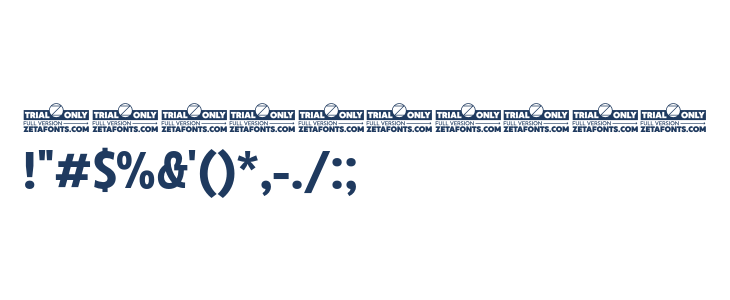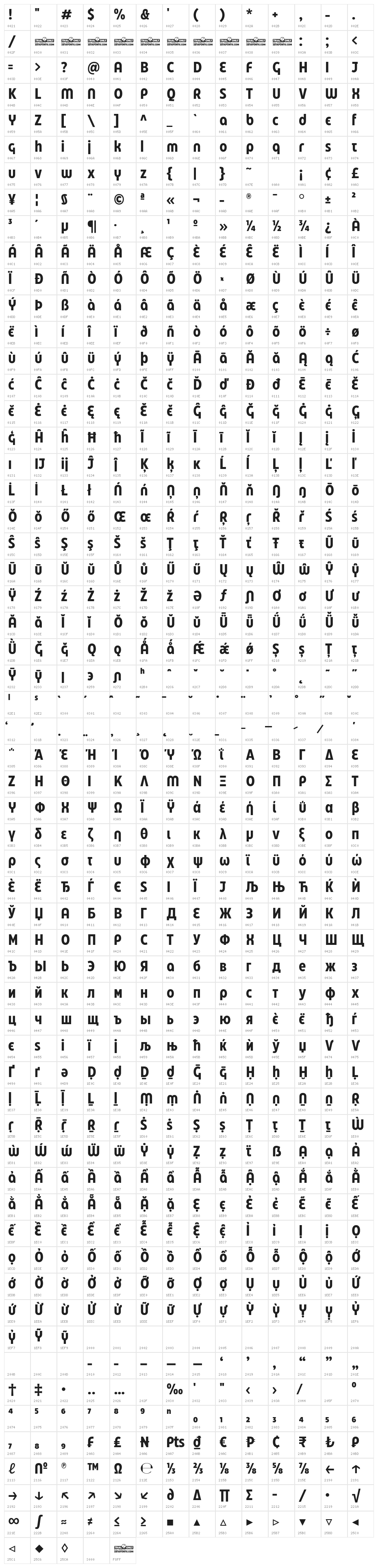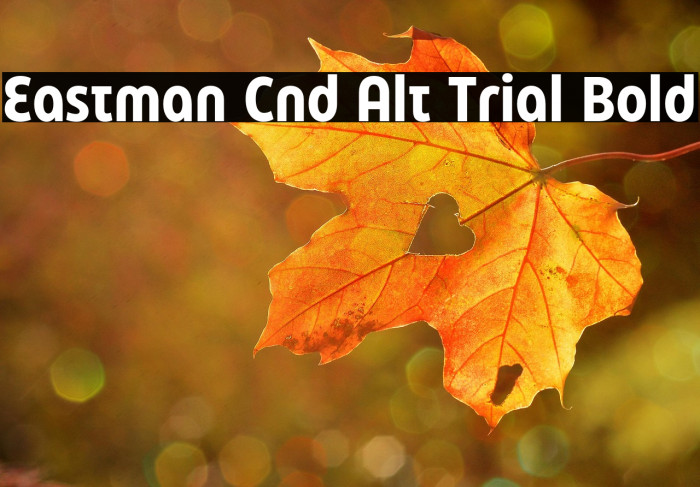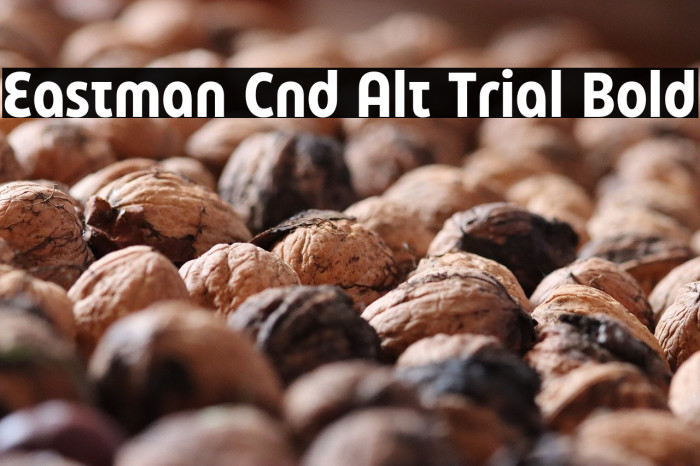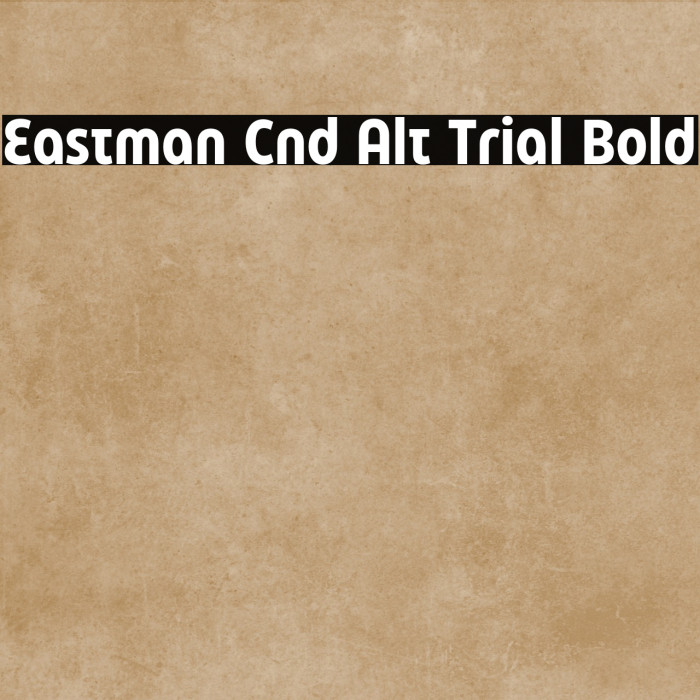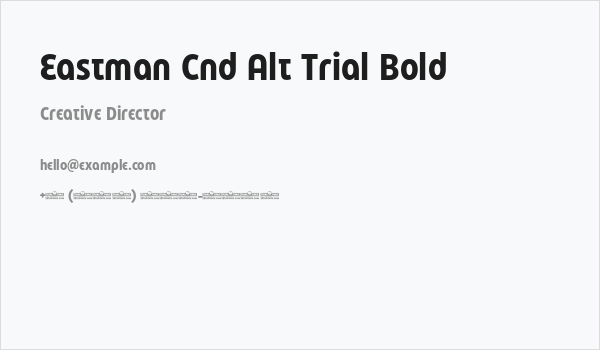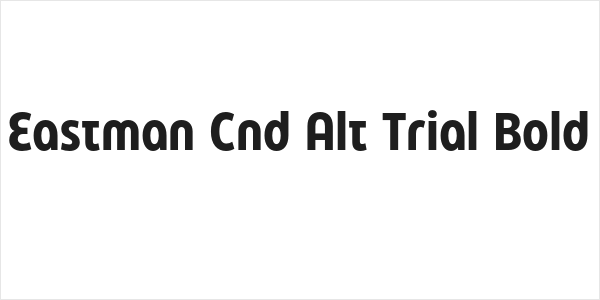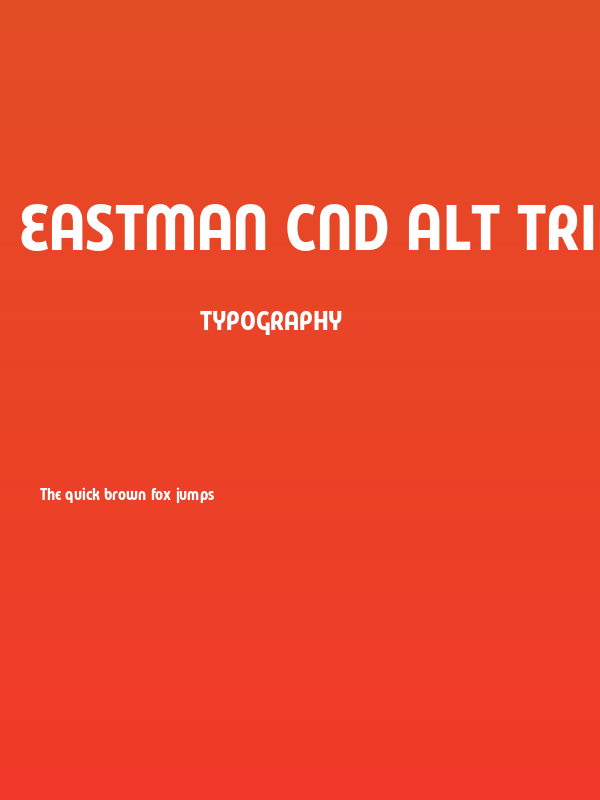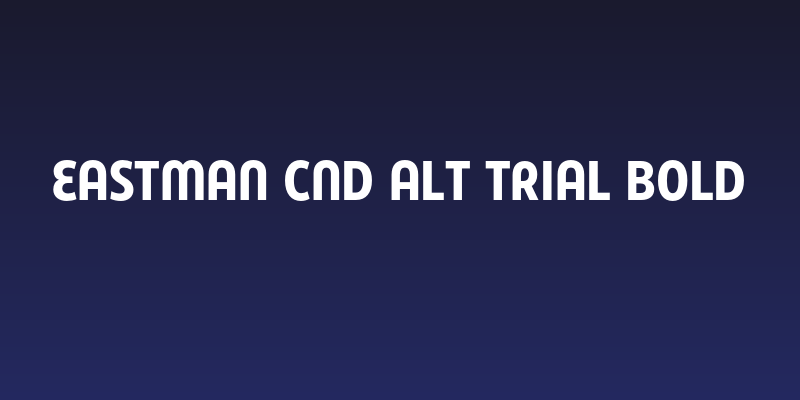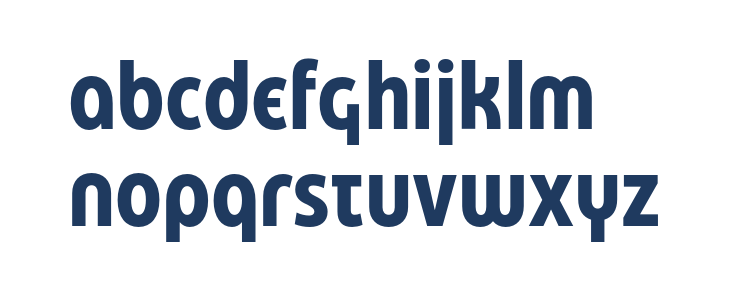
Eastman Cnd Alt Trial Bold Font
Eastman Cnd Alt Trial Bold Description
This font features a bold and modern design with a condensed structure, making it ideal for impactful headlines and attention-grabbing text. The characters are uniformly thick, providing a strong visual presence. The uppercase and lowercase letters maintain a consistent style, with rounded edges that soften the overall appearance. The numerals and special characters are designed to complement the alphabet, ensuring a cohesive look across all text elements. This font's boldness and clarity make it suitable for a variety of design projects.